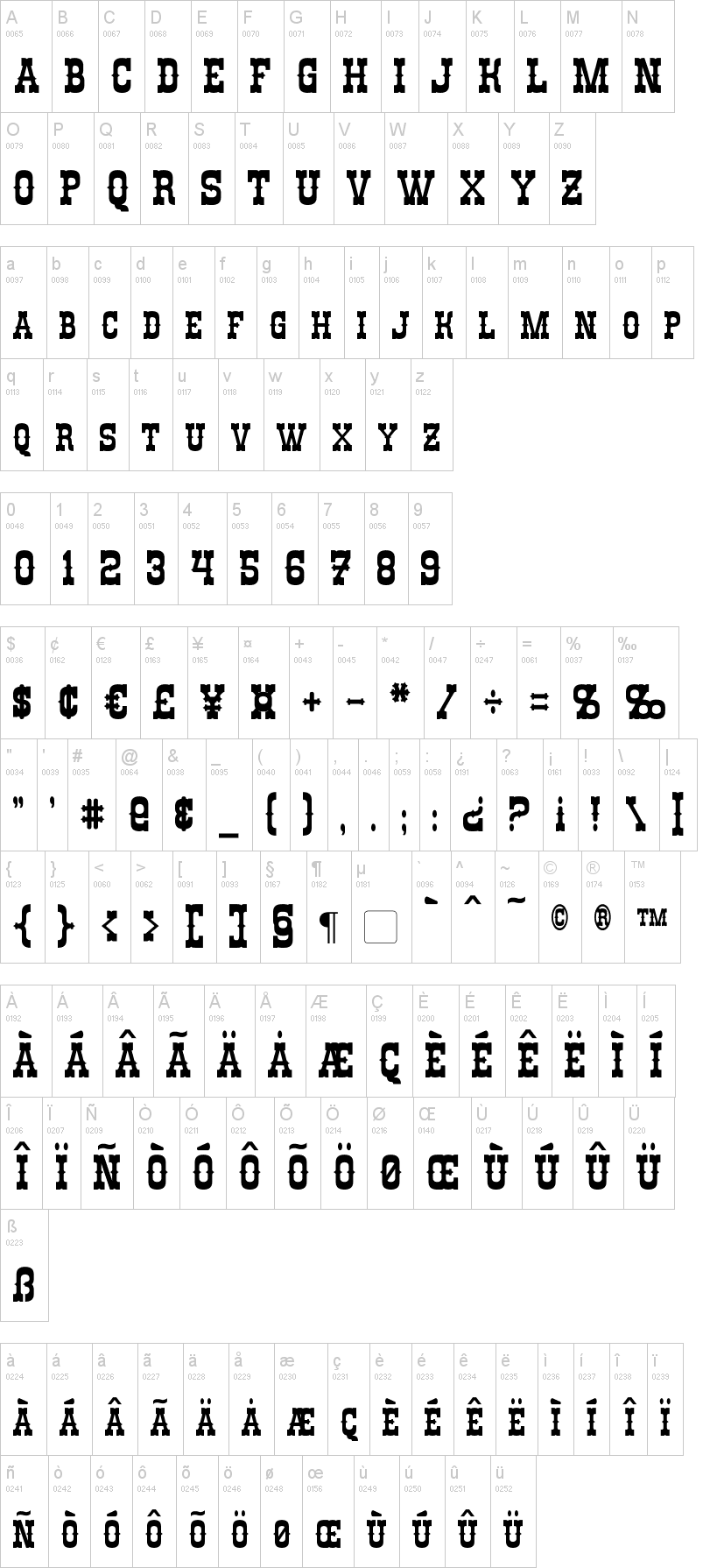
Rio Oro Italic.otfRio Oro Bold.otfRio Oro Bold Italic.otfNote of the authorRio Oro is a bold, decorative font inspired on classic Wild West marquees and signage. Includes full alphabet, small cats, accent characters, punctuation, and Euro. Includes regular, bold, italic, and bold-italic weights. (Version 1.10)